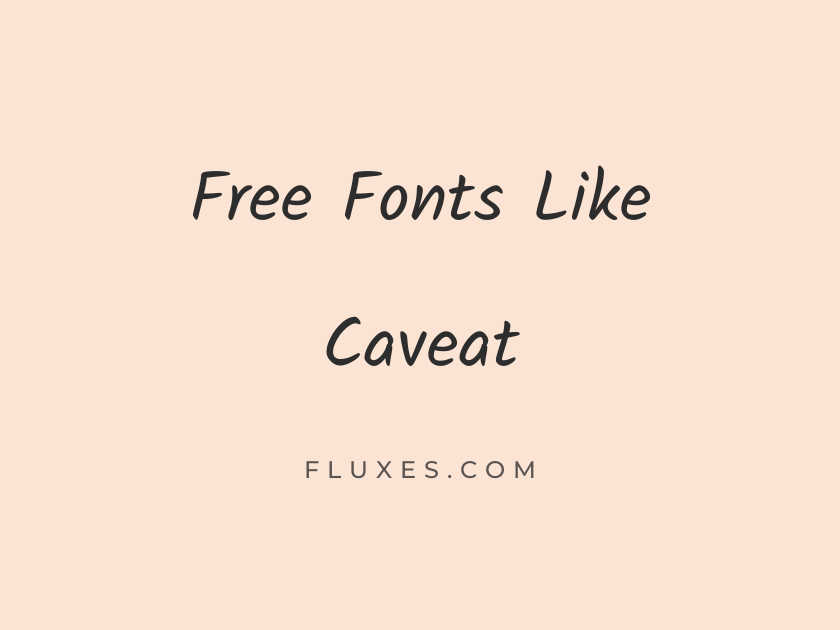
15 Best Free Fonts Similar to Caveat
Caveat has become the default choice for anyone who wants a handwriting font that feels genuine rather than decorative, the kind of casual, slightly uneven script you’d find in a real notebook margin. Its popularity means designers are often hunting for free handwriting fonts with a similar loose, marker-and-ballpoint energy, whether for greeting cards, packaging, social graphics, or a warm accent on a website built with a page builder. Google Fonts happens to be full of scripts that share that same unpretentious, human quality, each with its own tilt, weight, and personality.
1. Kalam
Kalam is probably the closest sibling Caveat has on Google Fonts, sharing that same relaxed ballpoint slant but with slightly rounder, friendlier letterforms. It comes in three weights, which gives it more flexibility for emphasis and hierarchy than many handwriting fonts offer. Designers often reach for it when they want the informality of Caveat but need a bolder option for headlines.
2. Patrick Hand
This one reads like a classroom worksheet in the best way: even, legible, and completely unfussy. Patrick Hand trades Caveat’s flowing connections for a more upright, printed handwriting style, which makes it a smart pick for body text or instructional content where legibility at small sizes matters more than flourish.
3. Indie Flower
Bouncy and round, Indie Flower has a childlike charm that works well on invitations, kids’ brand identities, or anything that wants to feel playful rather than polished. It gets muddy in long paragraphs, so it’s best reserved for short bursts of text like headlines or callouts.
4. Shadows Into Light
There is a lightness to Shadows Into Light that makes it feel almost whispered onto the page, thin strokes and a gentle rightward lean giving it a diary-entry intimacy. It pairs nicely with a clean sans serif body font when used as an accent for pull quotes or signatures.
5. Gochi Hand
Gochi Hand has a slightly wobbly, felt-tip quality that feels less refined than Caveat but more textured, like it was written in a hurry. It suits craft and DIY branding, zines, or anywhere a rougher, homemade voice is the goal.
6. Reenie Beanie
Tall, narrow, and a little scrappy, Reenie Beanie looks like it was dashed off on a sticky note. It works best at larger sizes as a decorative accent since its condensed proportions and thin strokes can blur together in smaller text blocks.
7. Nanum Pen Script
Originating from Naver’s Nanum type project in Korea, this font brings a brush-pen softness with wide, sweeping curves that feel more deliberate than hurried. It’s a good alternative to Caveat when you want a script with a bit more weight and presence on the page.
8. Neucha
Neucha has an easy, rounded informality with a slightly heavier stroke than Caveat, giving it more visual weight without losing the handwritten feel. It holds up surprisingly well in longer passages, making it a reasonable choice for handwritten-style body copy rather than just headlines.
9. Just Another Hand
Condensed and upright, Just Another Hand looks like fast, efficient handwriting rather than a flowing script. It’s a strong option when space is tight and you still want that personal, penned quality rather than a formal typeface.
10. Architects Daughter
This one leans architectural in spirit, an all-caps-friendly, drafting-table hand that suggests blueprints and notebooks rather than love letters. It brings a technical, DIY sensibility that separates it from the softer, more romantic feel of Caveat.
11. Homemade Apple
Thick, dark, and rounded, Homemade Apple looks like it was written with a fat marker on a chalkboard. It carries a cozy, kitchen-table warmth that makes it a favorite for bakery labels, recipe cards, and other food-adjacent branding.
12. Covered By Your Grace
Covered By Your Grace has an endearing, slightly imperfect wobble to its letterforms, the kind of handwriting that feels personal rather than polished. It shows up often on greeting cards and devotional materials, where its gentle irregularity reads as sincerity.
13. Handlee
Rounded and casual without tipping into childish, Handlee sits comfortably between Caveat’s flowing looseness and Patrick Hand’s clean legibility. It’s a dependable middle-ground option for UI text, blog headers, or anywhere you need warmth without sacrificing readability.
14. Sriracha
Spicy notes scribbled on the recipe card
Sriracha has a confident, slightly angular brush quality that gives it more punch than most handwriting fonts on this list. Its name suits its personality: bold, a little unpredictable, and best used sparingly for maximum effect.
15. Rock Salt
Handwritten signs for the corner shop
Rock Salt is rougher and more textured than Caveat, with an uneven, hand-lettered look reminiscent of chalk or grease pencil on a market sign. It’s a strong choice for rustic, vintage, or artisanal branding where a bit of grit is the point.
Pairing and Usage Tips
Handwriting fonts like these work best in moderation. Use them for headlines, signatures, quotes, or short callouts, and let a clean sans serif or serif carry the body text.
Because scripts vary so much in weight and legibility, always test them at the actual size they will appear on the page. Some, like Reenie Beanie or Indie Flower, need generous sizing to stay readable.
There is no single perfect substitute for Caveat, but the range here covers everything from tidy, legible handwriting to loose, expressive marker scripts. Testing a few side by side on your own layout is the fastest way to find the one that matches the tone you are after.